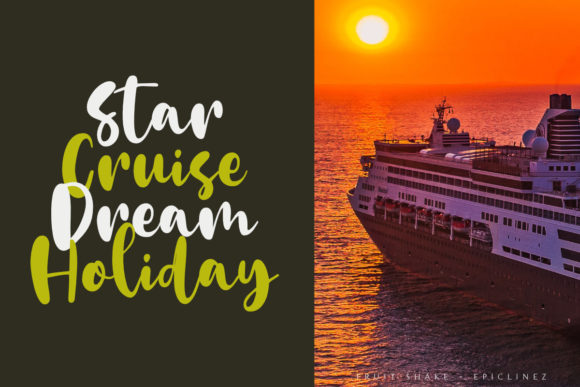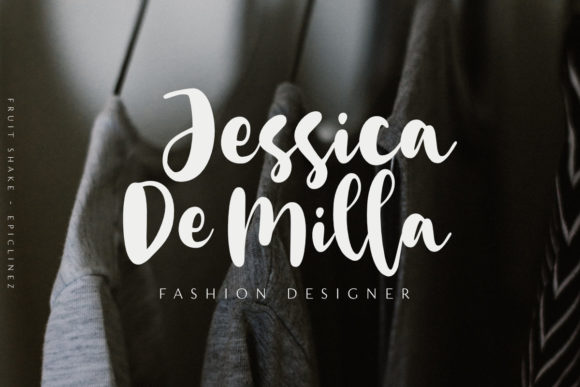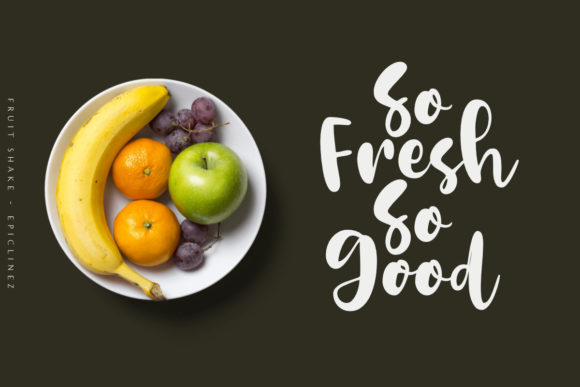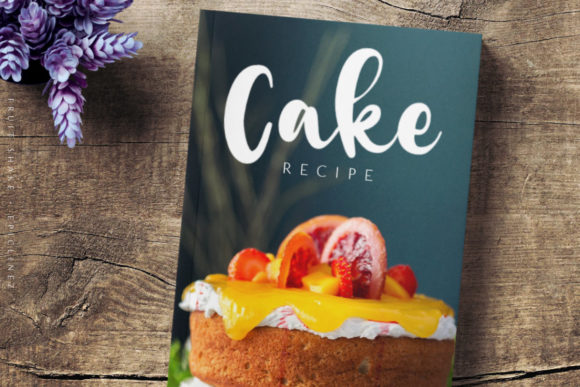
About Fruit Shake Font
Fruit Shake is a whimsical script font with a relaxed theme, featuring a lovely style. No matter the topic, this font will be an incredible asset to your fonts’ library, as it has the potential to elevate any creation.